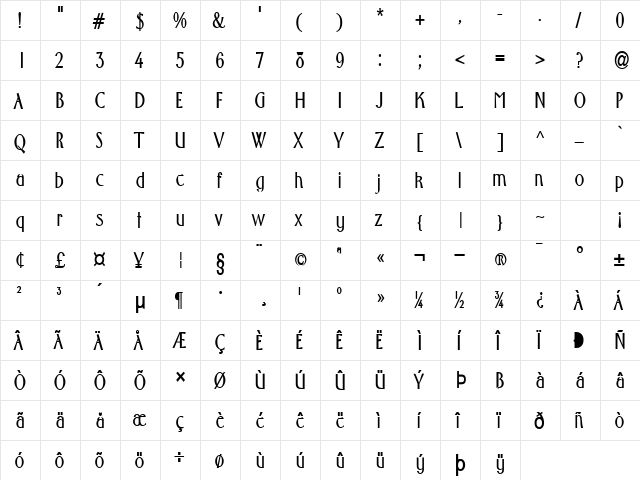
Wright-Condensed Bold Font Preview
Design Context for Wright-Condensed Typeface
Wright-Condensed offers clean, dependable letterforms without strong stylistic allegiance, making it a practical choice for designers who need flexibility. Its bold stroke weight gives it real presence on the page. The condensed width makes it efficient for tight spaces without sacrificing legibility.